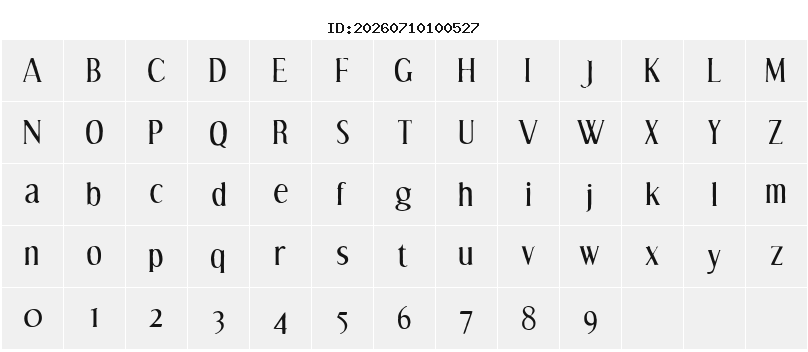
Effloresce Antique Preview
• Font Name: Effloresce Antique
• Full Font Name: Effloresce Antique
• Designer: Ray Larabie
• Manufacturer: Ray Larabie
About Effloresce Antique.ttf
Effloresce Antique.ttf is a modern, elegant sans-serif font designed for ultimate readability and visual harmony. Perfect for branding, headlines, web design, and print materials.